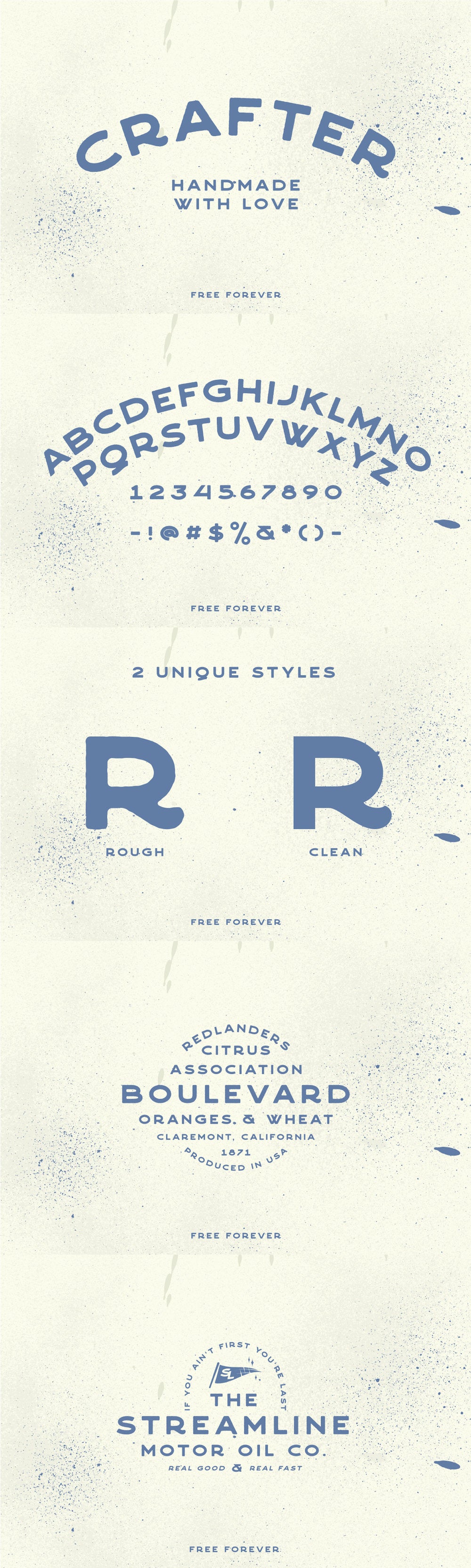
Free CRAFTER - VINTAGE FONT
Featuring a free crafter - vintage font. This free typeface file was found from the amazing source called Pixel Surplus. You can create a professional designs with this cool font.